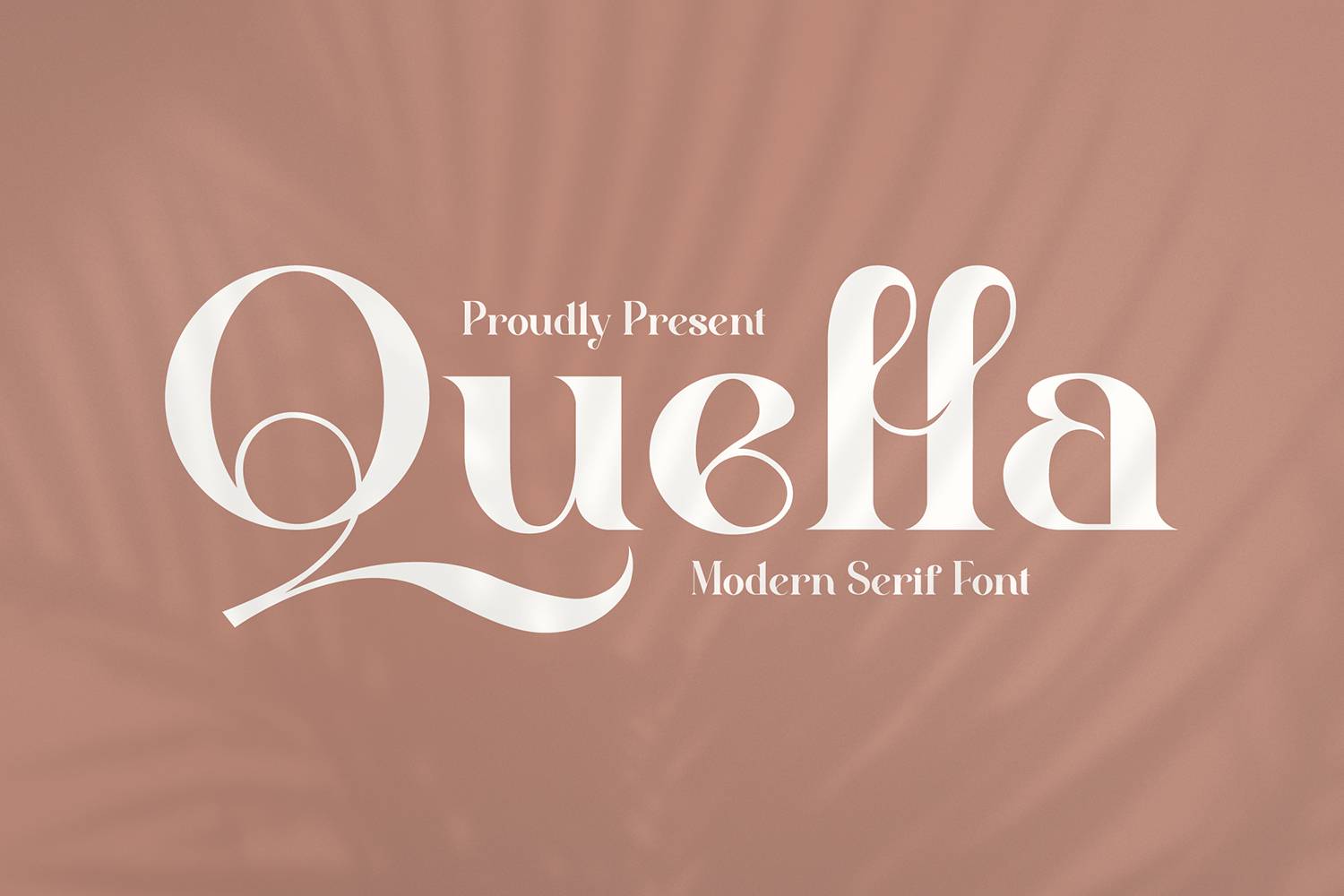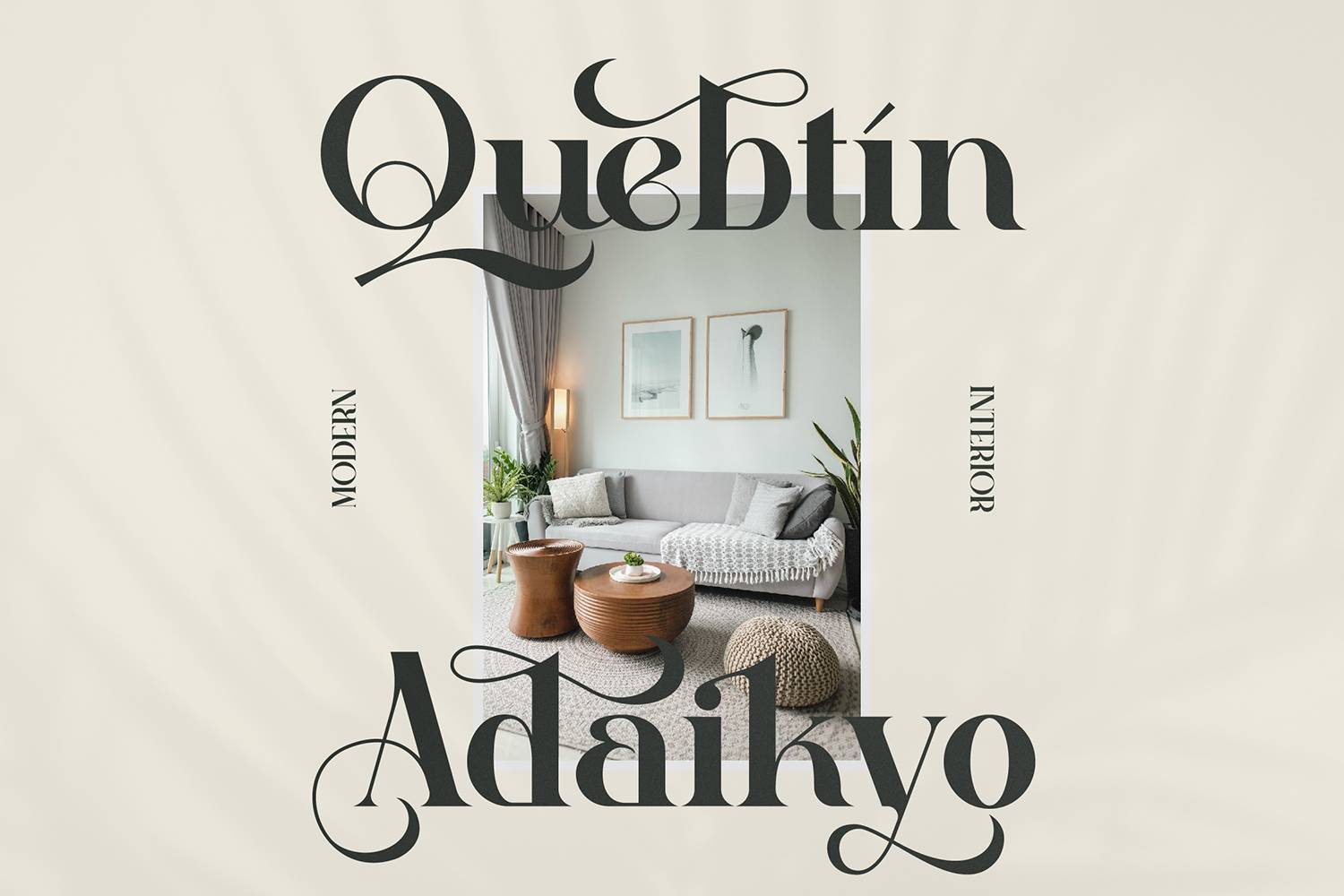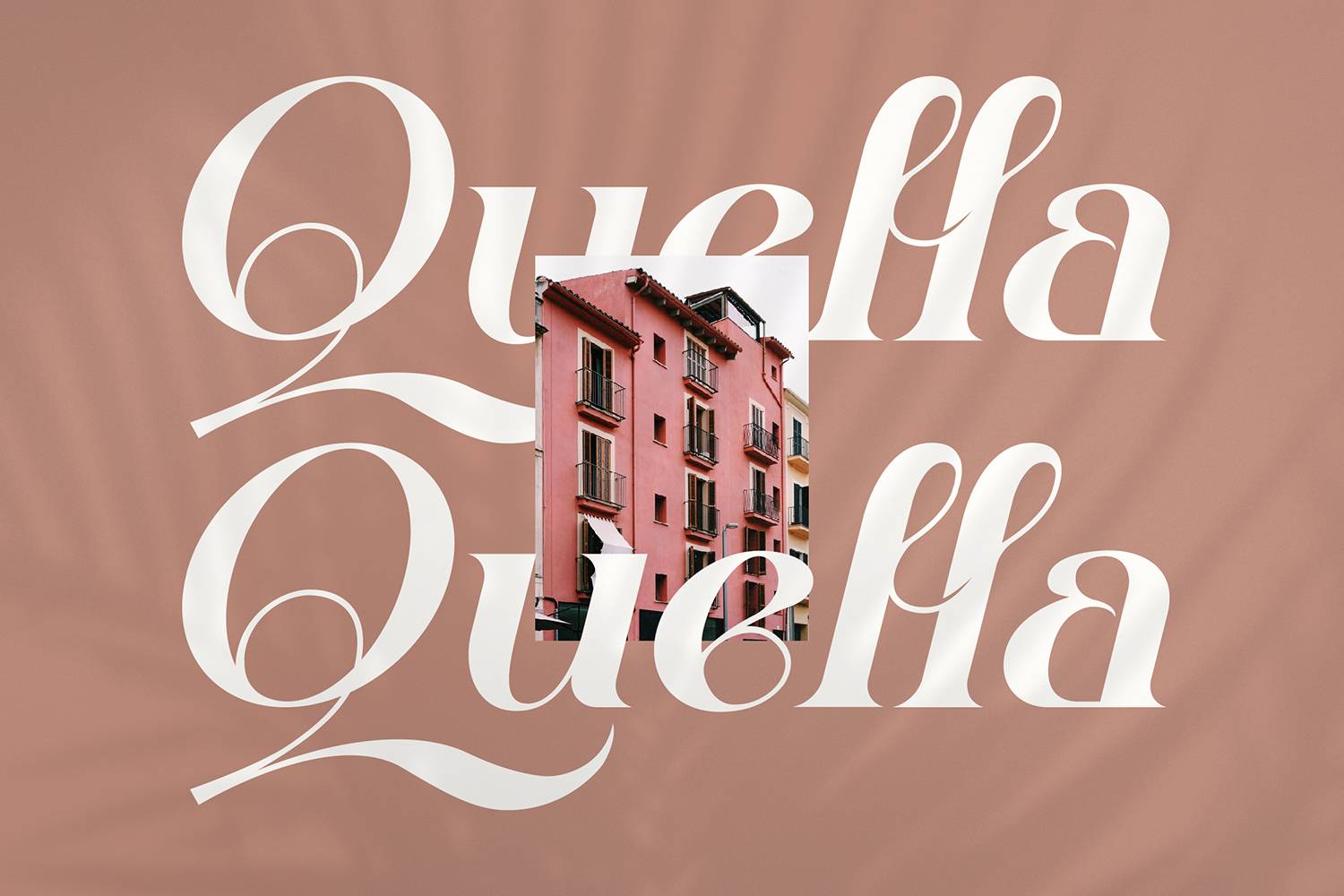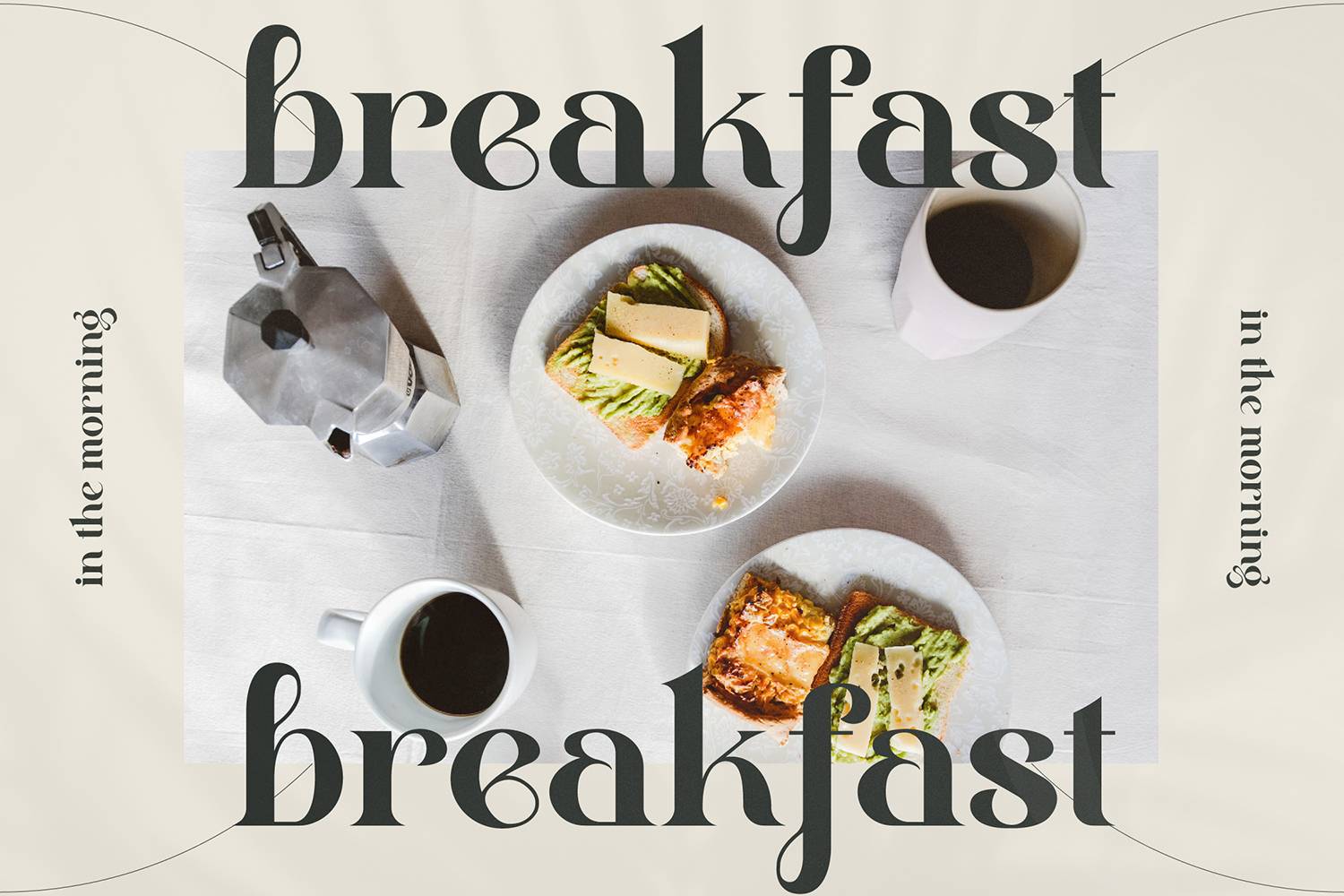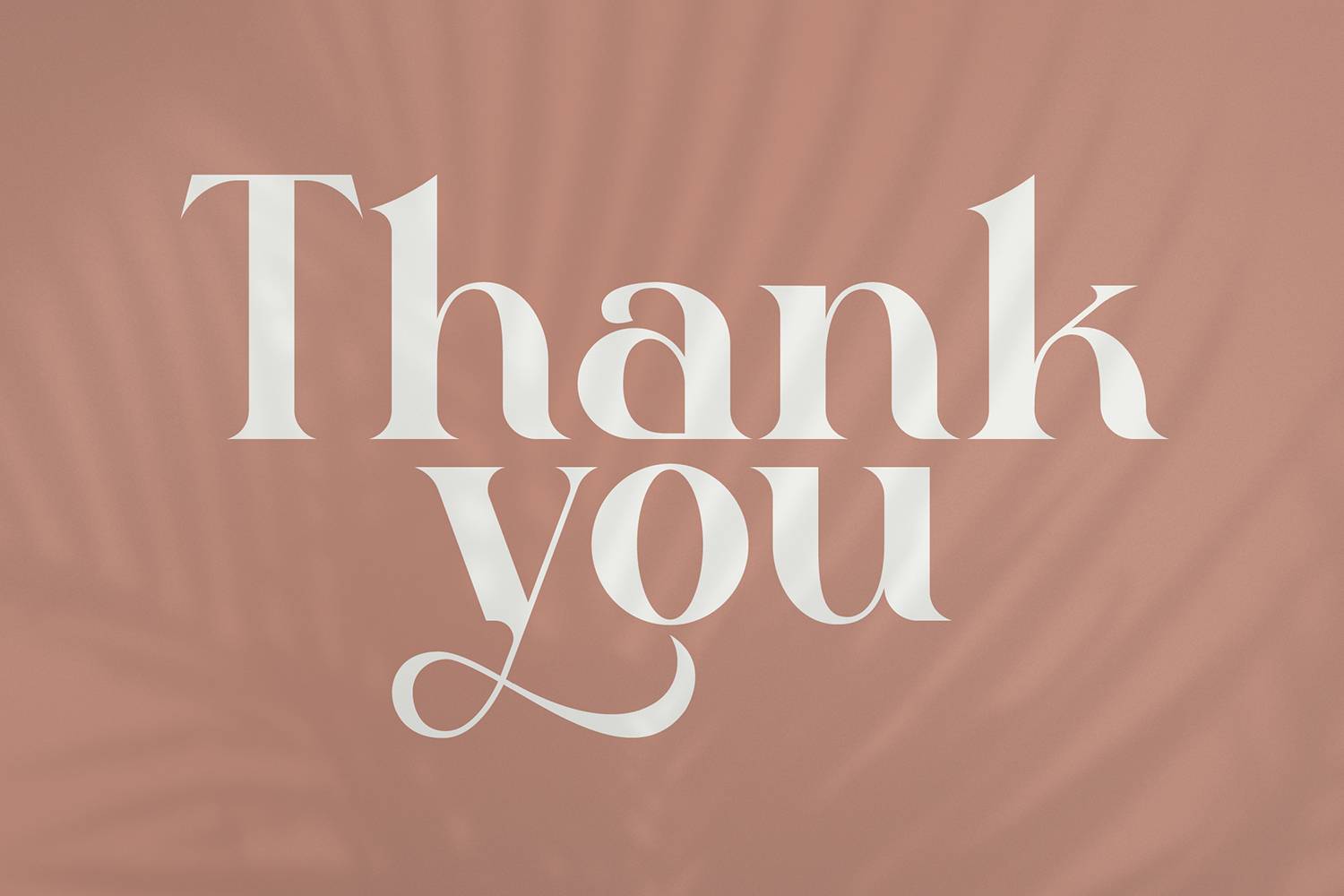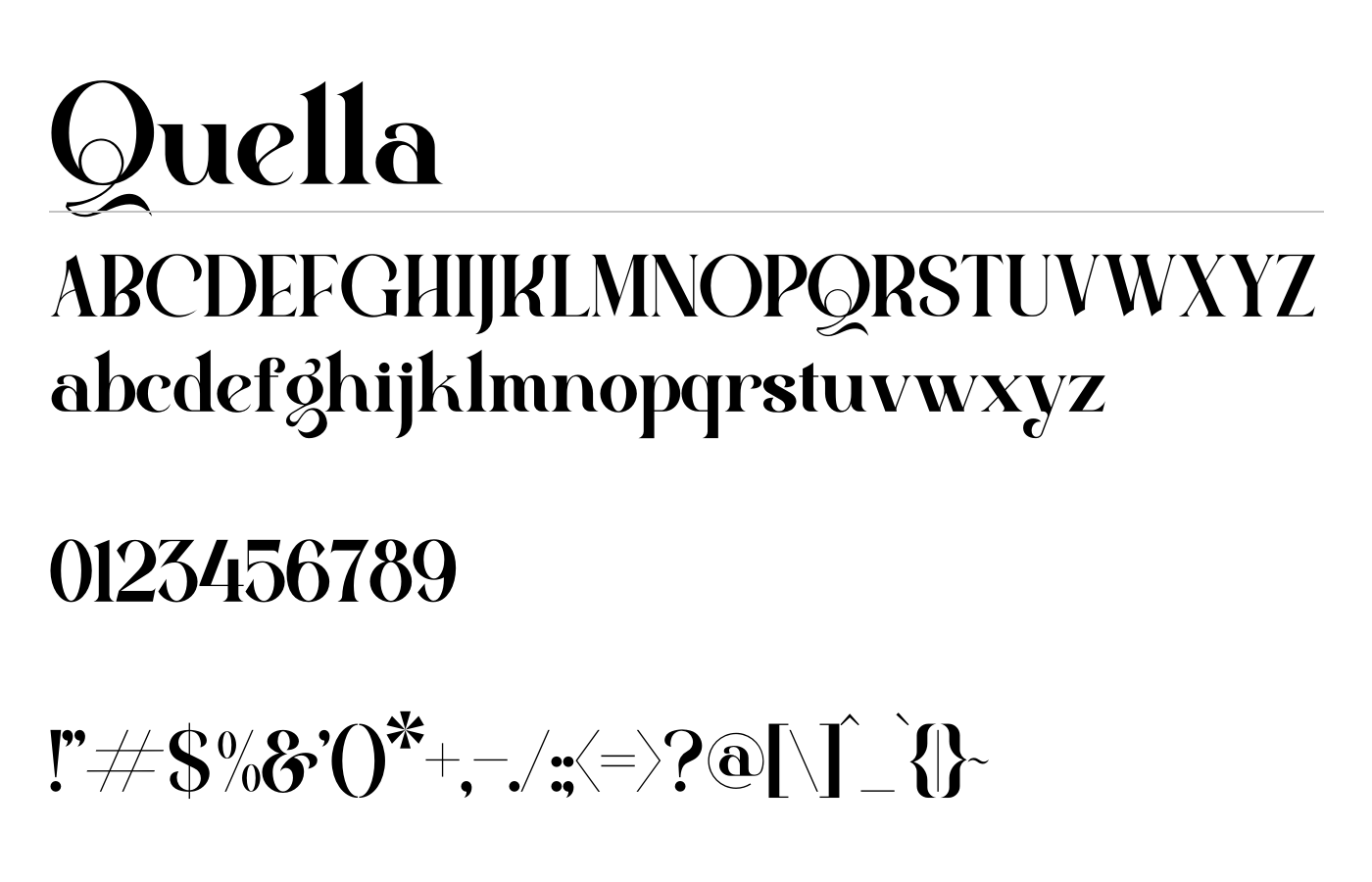
Quella is a striking serif typeface with a modern Didone style, characterized by high contrast between thick and thin strokes and elegant, sharp serifs. Its unique letterforms feature decorative flourishes and refined details that create a luxurious and sophisticated feel, making it perfect for fashion branding, editorial headlines, and upscale logo design. This font brings a bold yet graceful presence to any project that seeks to combine classic elegance with contemporary flair.
Quella Font
About Quella Font